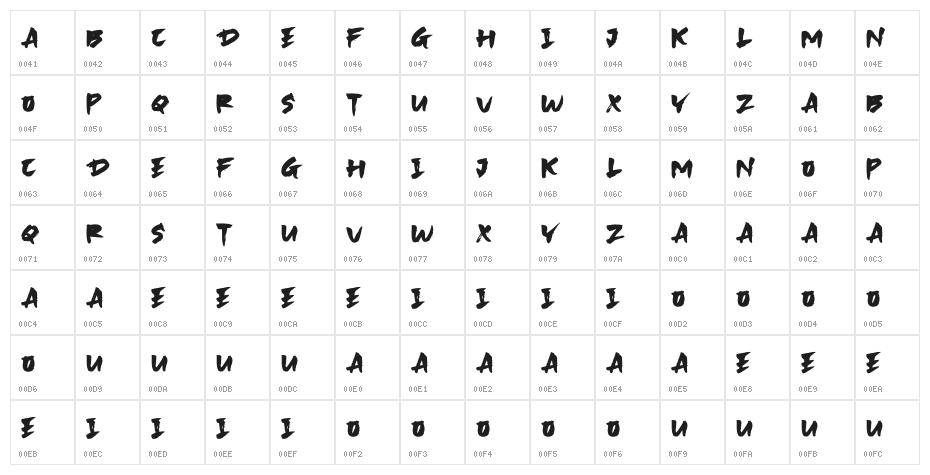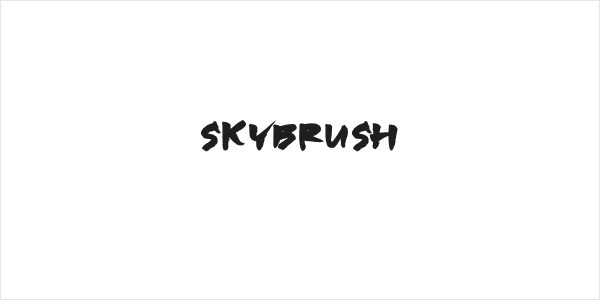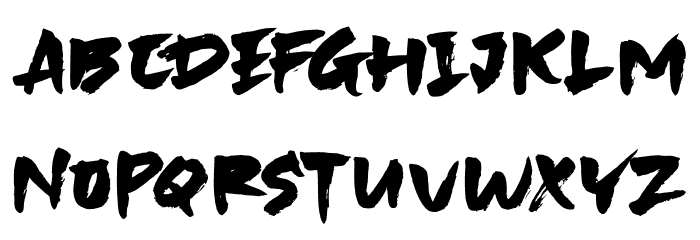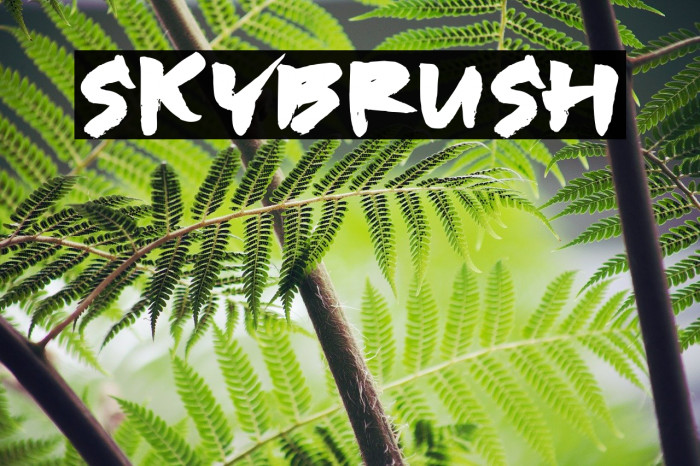
SKYBRUSH Font
SKYBRUSH Description
This font features a bold and dynamic brush style, characterized by its thick, expressive strokes and a slightly irregular, hand-painted appearance. The letters exhibit a sense of movement and energy, with varying stroke widths that create a lively and artistic feel. The uppercase letters are particularly striking, with sharp angles and a slightly aggressive flair. The lowercase letters maintain the same energetic style, ensuring consistency throughout the typeface. This font's boldness and unique character make it stand out, perfect for projects that require a strong visual impact.
| Proposed Projects | Ideal for branding, posters, album covers, and any design needing a bold, artistic touch. |